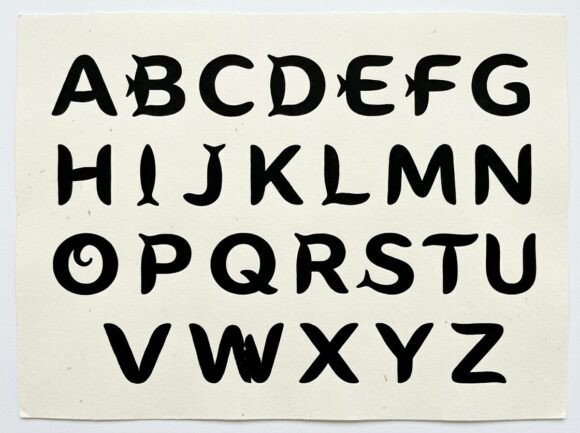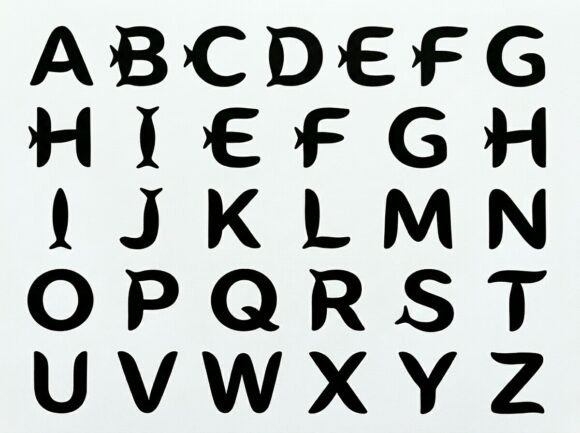
Introducing Darky Font: A Bold and Whimsical Typeface for Your Next Creative Project
Are you looking for a font that can add a touch of professionalism and playfulness to your design project? Look no further than Darky Font, a unique and versatile typeface that combines bold geometry with whimsical aquatic motifs. In this article, we’ll dive into the features and benefits of Darky Font, and explore how it can elevate your designs for aquarium branding, seafood restaurant logos, marine conservation graphics, and children’s adventure book titles.
A Unique Blend of Bold Geometry and Whimsical Aquatic Motifs
Darky Font is a professional display font that seamlessly blends heavy, rounded letterforms with stylized fish silhouettes and tail fins. The negative spaces and terminals of the letters are cleverly transformed into oceanic details, creating a distinctive and eye-catching visual effect. This unique blend of bold geometry and whimsical aquatic motifs makes Darky Font an exceptional choice for designers who want to add a touch of personality to their work.
Perfect for Aquarium Branding and Marine Conservation Graphics
Darky Font is an ideal choice for aquarium branding and marine conservation graphics. The font’s oceanic motifs and bold, attention-grabbing letterforms make it perfect for creating eye-catching logos, posters, and social media graphics. Whether you’re designing for a aquarium, marine conservation organization, or a coastal-themed event, Darky Font delivers a sense of professional polish and imaginative, sea-inspired charm to every headline.
Great for Seafood Restaurant Logos and Children’s Adventure Book Titles
But Darky Font is not just limited to aquarium branding and marine conservation graphics. Its unique blend of bold geometry and whimsical aquatic motifs makes it a great choice for seafood restaurant logos, children’s adventure book titles, and coastal-themed event branding. The font’s playful and imaginative vibe is sure to appeal to kids and adults alike, making it perfect for designs that need to capture the attention of a wide audience.
Key Features of Darky Font
- Bold and attention-grabbing letterforms: Darky Font features heavy, rounded letterforms that are perfect for creating eye-catching headlines and titles.
- Whimsical aquatic motifs: The font’s negative spaces and terminals are cleverly transformed into stylized fish silhouettes and tail fins, adding a touch of playfulness and personality to your designs.
- Professional polish: Despite its playful vibe, Darky Font delivers a sense of professional polish and sophistication, making it perfect for a wide range of design projects.
- Versatile: Darky Font is a versatile typeface that can be used for a wide range of design projects, from aquarium branding and marine conservation graphics to seafood restaurant logos and children’s adventure book titles.
Tips for Using Darky Font in Your Designs
Here are a few tips for using Darky Font in your designs:
- Use it as a headline font: Darky Font is perfect for creating eye-catching headlines and titles. Use it to grab the attention of your audience and add a touch of personality to your designs.
- Pair it with a simple body font: Darky Font is a bold and attention-grabbing font, so it’s best to pair it with a simple body font that won’t compete with it. Choose a clean and easy-to-read font for your body text, and use Darky Font for your headlines and titles.
- Experiment with colors and textures: Darky Font looks great in a variety of colors and textures. Experiment with different colors and textures to find the perfect combination for your design project.
| Font Name | Darky Font |
| Author | mail.skygroup |
In conclusion, Darky Font is a unique and versatile typeface that combines bold geometry with whimsical aquatic motifs. Its perfect blend of professionalism and playfulness makes it an exceptional choice for a wide range of design projects, from aquarium branding and marine conservation graphics to seafood restaurant logos and children’s adventure book titles. With its bold and attention-grabbing letterforms, whimsical aquatic motifs, and professional polish, Darky Font is sure to elevate your designs and add a touch of personality to your work.